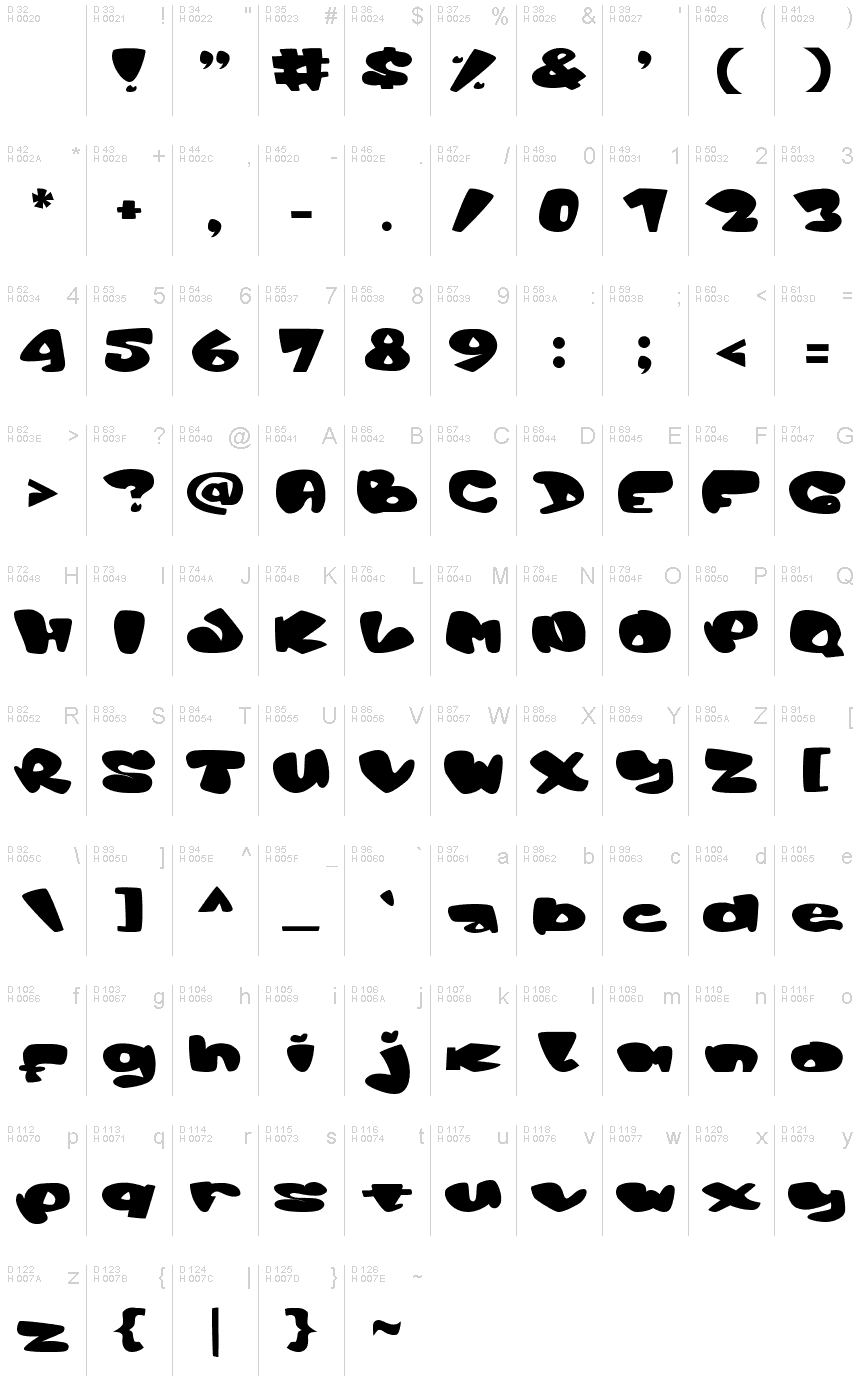
Introducing MAJOR, a vibrant display font designed by Display Studio. With its ultra-bold weight and expanded width, MAJOR brings a playful, cartoonish charm to any project. Perfect for children's books, animated films, and comic strips, this font captures attention with its lively personality. Whether you're designing eye-catching logos or creating catchy headlines, MAJOR is the go-to choice for projects that demand a bold and expressive typeface. Stand out from the crowd and make a statement with MAJOR - the ultimate font for unleashing your creativity!
MAJOR